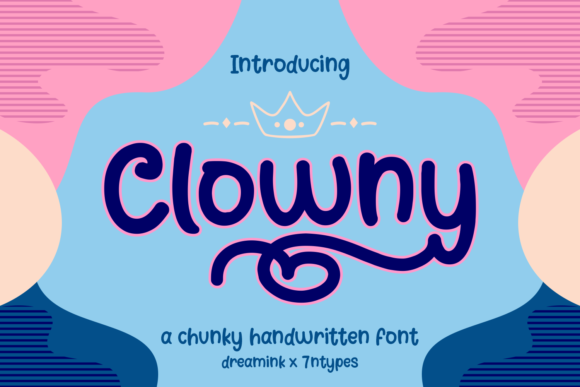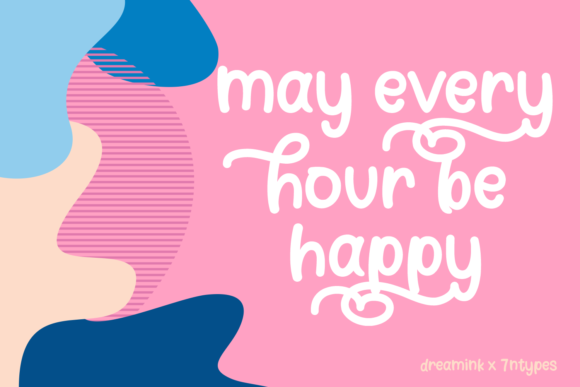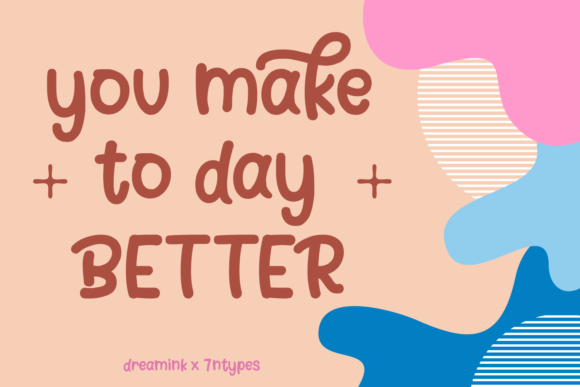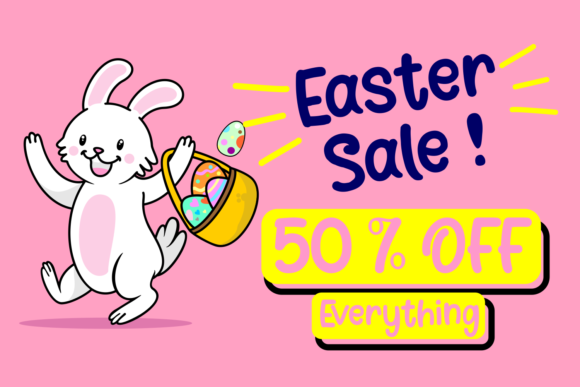
Unlock the Magic of Elegant Typography with Clowny Font
Have you ever found yourself staring at a blank page, searching for the perfect font to bring your creative vision to life? We’ve all been there. Sometimes, it’s not just about finding the right words, but also about selecting a font that exudes sophistication and charm. That’s where Clowny Font comes in – a stunning handwriting font that’s equal parts elegant and whimsical.
Clowny Font is a stylish homage to classic calligraphy, designed to elevate a wide range of design projects to the highest level. Whether you’re working on branding, headings, wedding designs, invitations, signatures, logos, labels, or anything in between, this versatile font is sure to impress. As a designer, you know the value of having the right tools at your fingertips, and Clowny Font is an invaluable addition to your toolkit.
Key Features of Clowny Font
- Font Family: Clowny Font is a unique, hand-drawn font family designed for creative and playful purposes.
- Size: Clowny Font comes in 6 font styles: Clowny Regular, Clowny Italic, Clowny Bold, Clowny Bold Italic, Clowny Outline, and Clowny Shadow.
- Unique Characteristics: Clowny Font features hand-drawn, irregular shapes, and playful flourishes, making it perfect for adding a touch of whimsy to designs.
Designer Review: Clowny Font
Overall, I have mixed feelings about the Clowny Font. On one hand, it’s a unique and attention-grabbing choice for certain projects. The font’s playful and whimsical nature can add a touch of fun and personality to a design. ✨ I particularly enjoy the font’s ability to convey a sense of playfulness and energy, making it suitable for children’s books, party invitations, or other lighthearted designs.
However, there are some limitations to consider. The font’s irregular shape and unconventional letterforms can make it difficult to read, especially in longer blocks of text. This can lead to eye strain and decreased readability. ⚠️ Additionally, the font’s lack of clarity and consistency can make it challenging to pair with other fonts or use in complex designs.
- Unique and attention-grabbing choice for certain projects
- Playful and whimsical nature adds a touch of fun and personality to a design
- Suitable for children’s books, party invitations, or other lighthearted designs
- Difficult to read in longer blocks of text
- Lack of clarity and consistency can make it challenging to pair with other fonts
- May not be suitable for complex designs or formal projects
Tips for Getting the Most Out of Clowny Font
To get the most out of Clowny Font, use it for playful and whimsical designs, such as:
- Children’s birthday party invitations.
- Comic book illustrations.
- Advertising and marketing campaigns.
Clowny Font is commonly used for:
- Creating eye-catching headlines.
- Adding a playful touch to designs.
- Conveying a sense of fun and humor.
Alternatives to Clowny Font
Great Vibes is a handwritten font that is perfect for creating a playful and casual atmosphere. It is ideal for use in advertising, social media, and blog posts where a fun and energetic tone is required.
Compared to Clowny Font, Great Vibes is more refined and elegant, with a more subtle playfulness that can add a touch of sophistication to designs.
Alex Brush is a calligraphy-inspired font that is great for creating a sense of elegance and sophistication. It is perfect for use in wedding invitations, luxury branding, and high-end advertising.
Alex Brush is more refined and less playful than Clowny Font, making it a better choice for designs that require a touch of class and sophistication.
Carolyna Pro is a modern, elegant font that is perfect for creating a sense of luxury and sophistication. It is ideal for use in high-end branding, advertising, and editorial design.
Compared to Clowny Font, Carolyna Pro is more formal and less playful, making it a better choice for designs that require a touch of elegance and refinement.
Playfair Display is a luxurious, high-end font that is perfect for creating a sense of opulence and sophistication. It is ideal for use in high-end branding, advertising, and editorial design.
What is the recommended font size for optimal readability with Clowny Font?
The recommended font size for optimal readability with Clowny Font is between 12pt and 18pt. This font size range allows for clear and legible text while maintaining the unique characteristics of the font. However, feel free to experiment with different font sizes to achieve the desired visual effect for your design project.